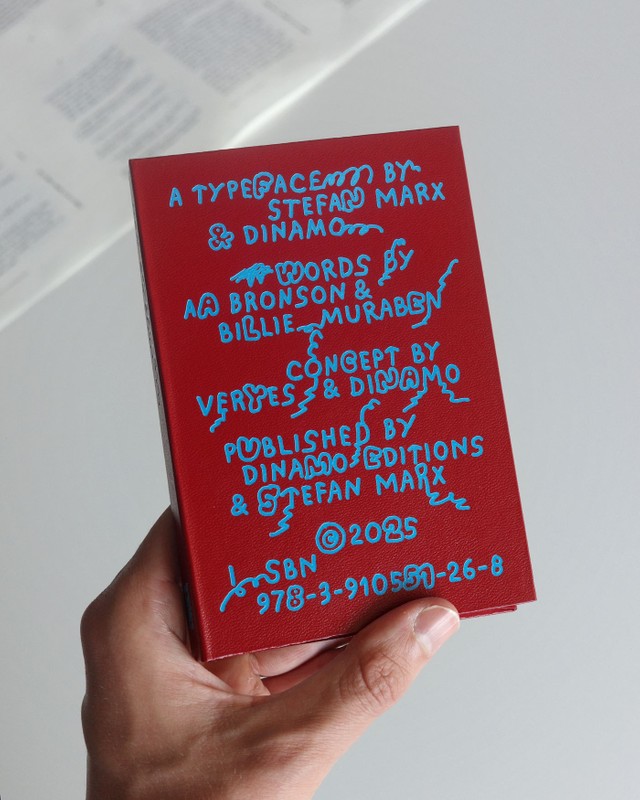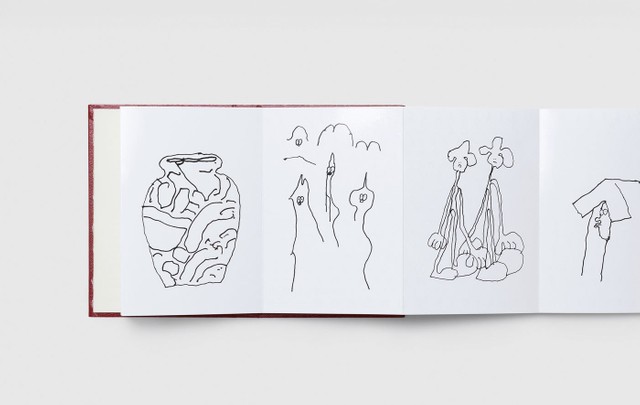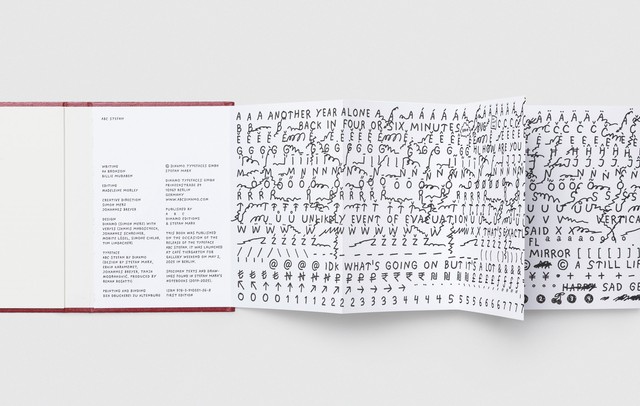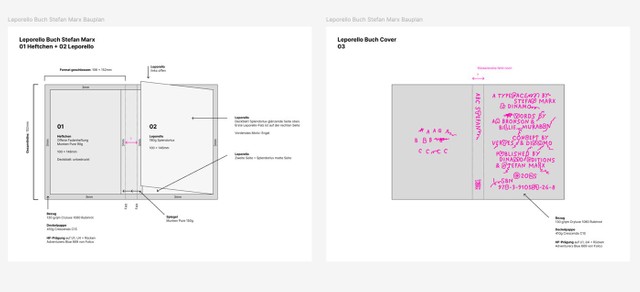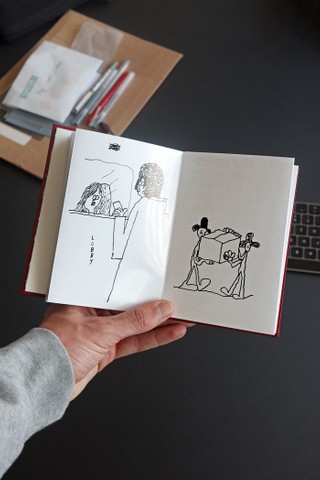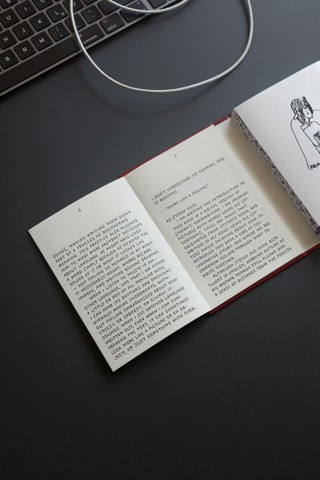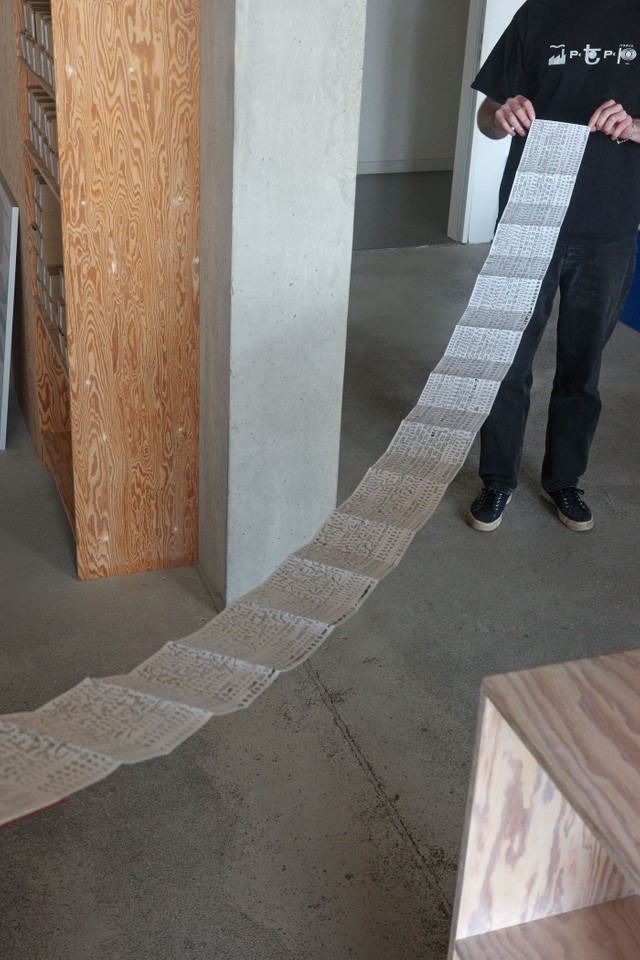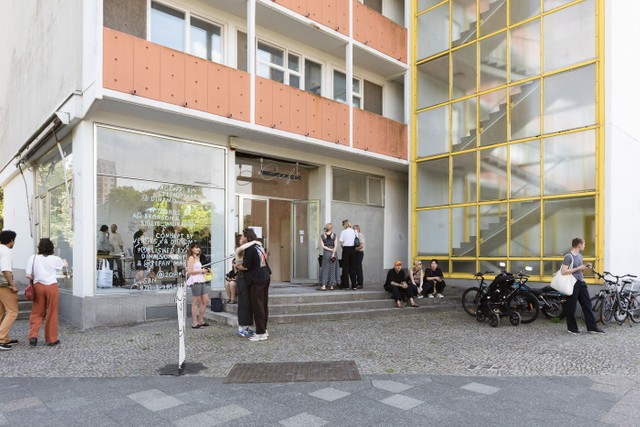
A specimen-artist-book hybrid to accompany our new handwriting font —
What does it mean to take something as personal as an artist’s handwriting, run it through a computer, and make it available for others to use? Our pocket-sized Leporello book seems to unfold endlessly as it attempts to approach this most delicate question.
Designed by Dinamo and veryes, the artist book features 2.5m of glyphs, Stefan Marx's A-Z of drawings, an essay by design writer and curator Billie Muraben, and a poem-artwork by the grandfather of zine-making, AA Bronson.
Rare sighting of a fold-out fanatic
Me IRL: